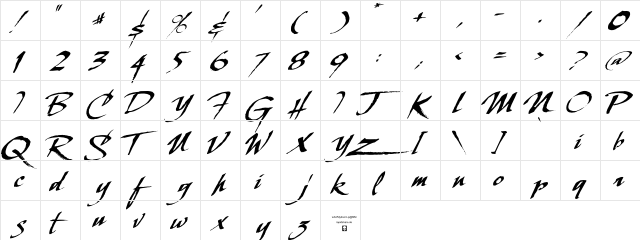
LHF Scriptana Slant Regular
| Foundry | Chuck Davis for Letterhead Fonts |
| Designer | Chuck Davis |
Design Context for LHF Scriptana Slant Typeface
LHF Scriptana Slant flows with the natural rhythm of handwritten lettering, making it ideal for designs that call for warmth and personal expression.
Font Pairing: Combine LHF Scriptana Slant with a simple geometric sans for maximum contrast — the tension between flowing curves and clean structure is a classic typographic pairing.
Pro Tip: Use LHF Scriptana Slant for short runs of text — names, titles, or taglines. Extended body copy in script faces tires the eye quickly.